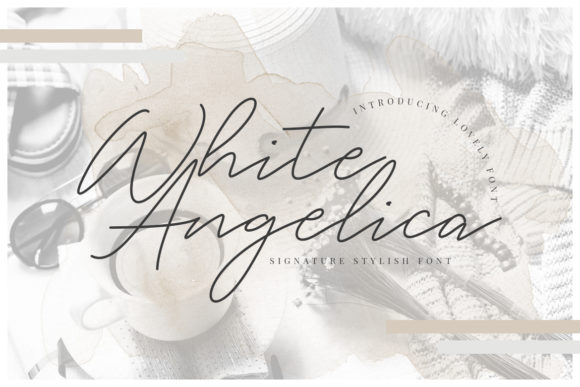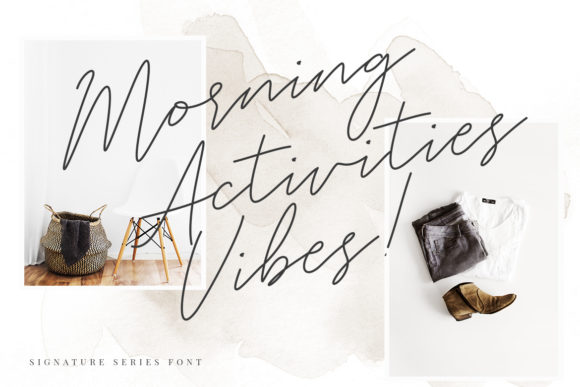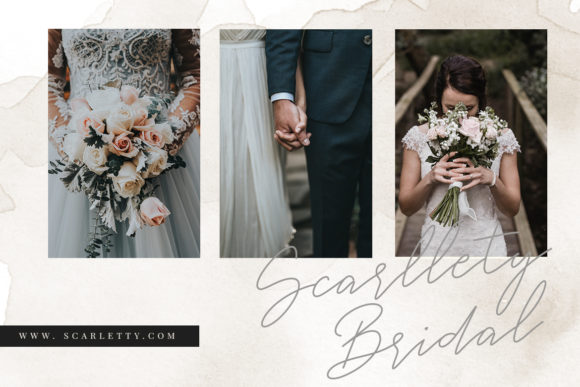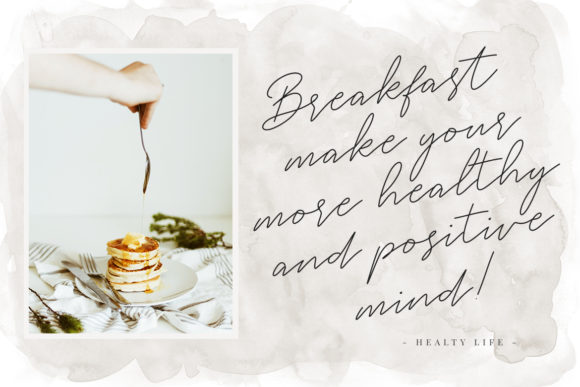
About White Angelica Font
The White Angelica is an elegant handwritten signature script. It has an unique flow with a natural and organic look.
It’s perfect for branding projects, logos, wedding designs, social media posts, advertisements, product packaging, product designs, labels, photography, watermarks, invitations, stationery and every other design which needs a handwritten touch.